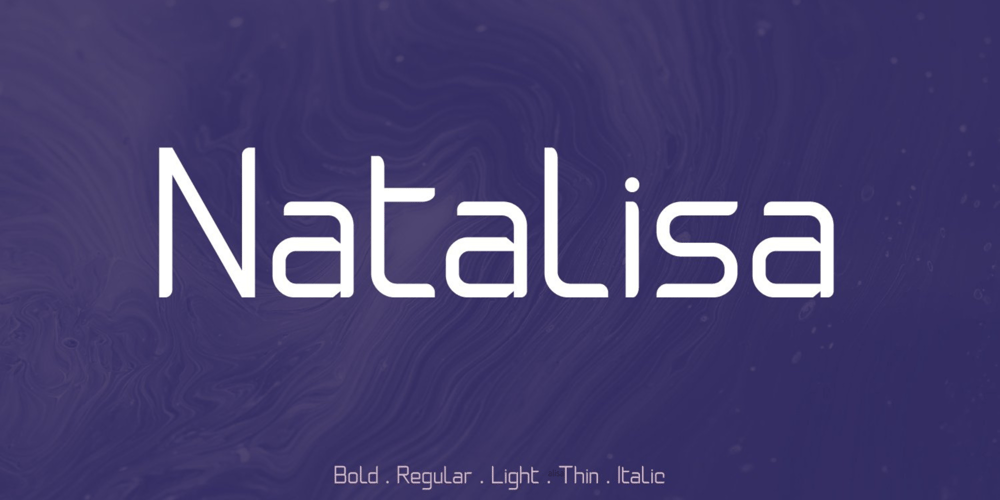
Natalisa
Natalisa font
Natalisa Font Family was designed by Irpan Maulana and published by Sabrcreative. Natalisa contains 8 styles and family package options. Introducing Natalisa, a sophisticated sans serif font that brings a perfect balance of elegance and versatility to your design projects. With its clean lines and modern aesthetics, Natalisa is ideal for creating sleek logos, captivating headlines, engaging advertisements, and eye-catching branding materials.Crafted with meticulous attention to detail, Natalisa offers a harmonious blend of uppercase and lowercase letters that seamlessly complement each other. Its refined letterforms lend a timeless appeal, making it suitable for a wide range of applications. Whether you’re designing for print or digital platforms, Natalisa will elevate your projects with its sleek and professional look.Not limited to its visual appeal, Natalisa is packed with essential features. The font includes a comprehensive set of numbers and punctuations, ensuring seamless integration into your designs. Its multilingual support allows you to effortlessly communicate your message in various languages, making it a versatile choice for global projects.With PUA encoding, Natalisa provides easy access to special characters and glyphs, expanding your creative possibilities. Additionally, the font offers ligatures that enhance the fluidity and elegance of your typography.